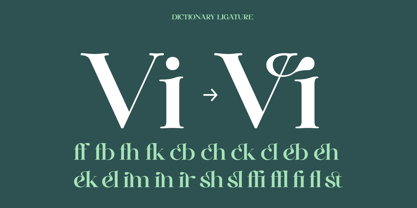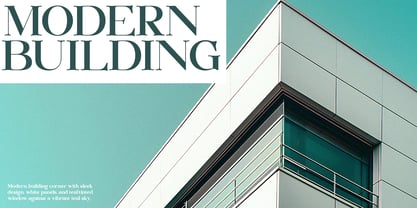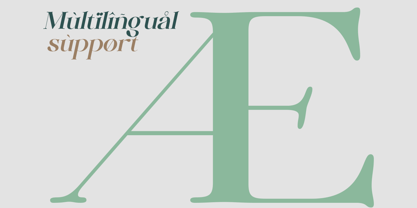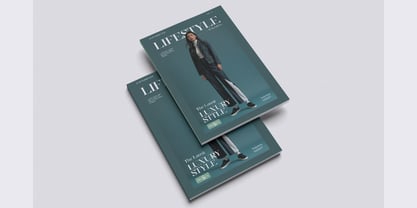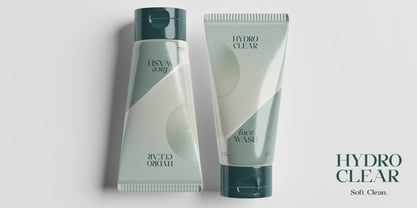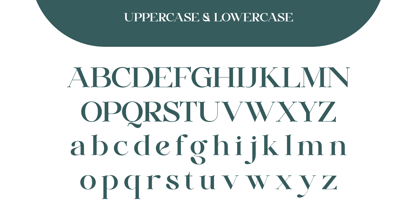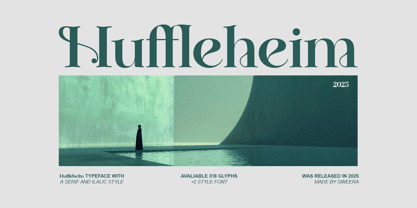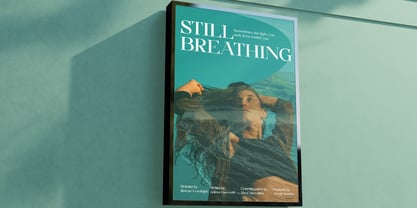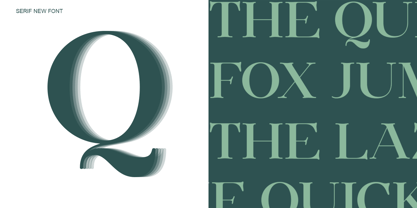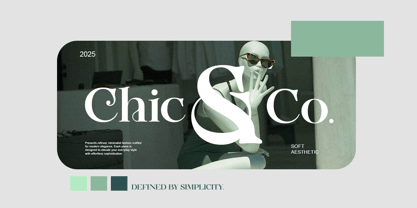
Huffleheim
The Huffleheim Font Family was designed by Idhham Cholid Rikzano Yahya and published by Qweera Studio. Huffleheim contains 2 styles and family package options. More about this family
Huffleheim is a modern classic display serif designed with architectural discipline and refined contrast. Its clean structure and balanced rhythm provide a premium typographic voice suited for editorial systems, branding identities, and luxury applications. The Regular and Italic styles extend versatility while maintaining clarity and structural integrity. Huffleheim embodies calm authority and European-inspired sophistication for professional design environments. Features Regular & Italic styles 318 glyphs Professional kerning Multilingual support Specifications Language Support: Western, Central Europe Features: High Contrast, Italic Style, Kerning Recommended For Brand identity systems, editorial typography, architecture branding, book publishing, luxury print & digital campaigns.